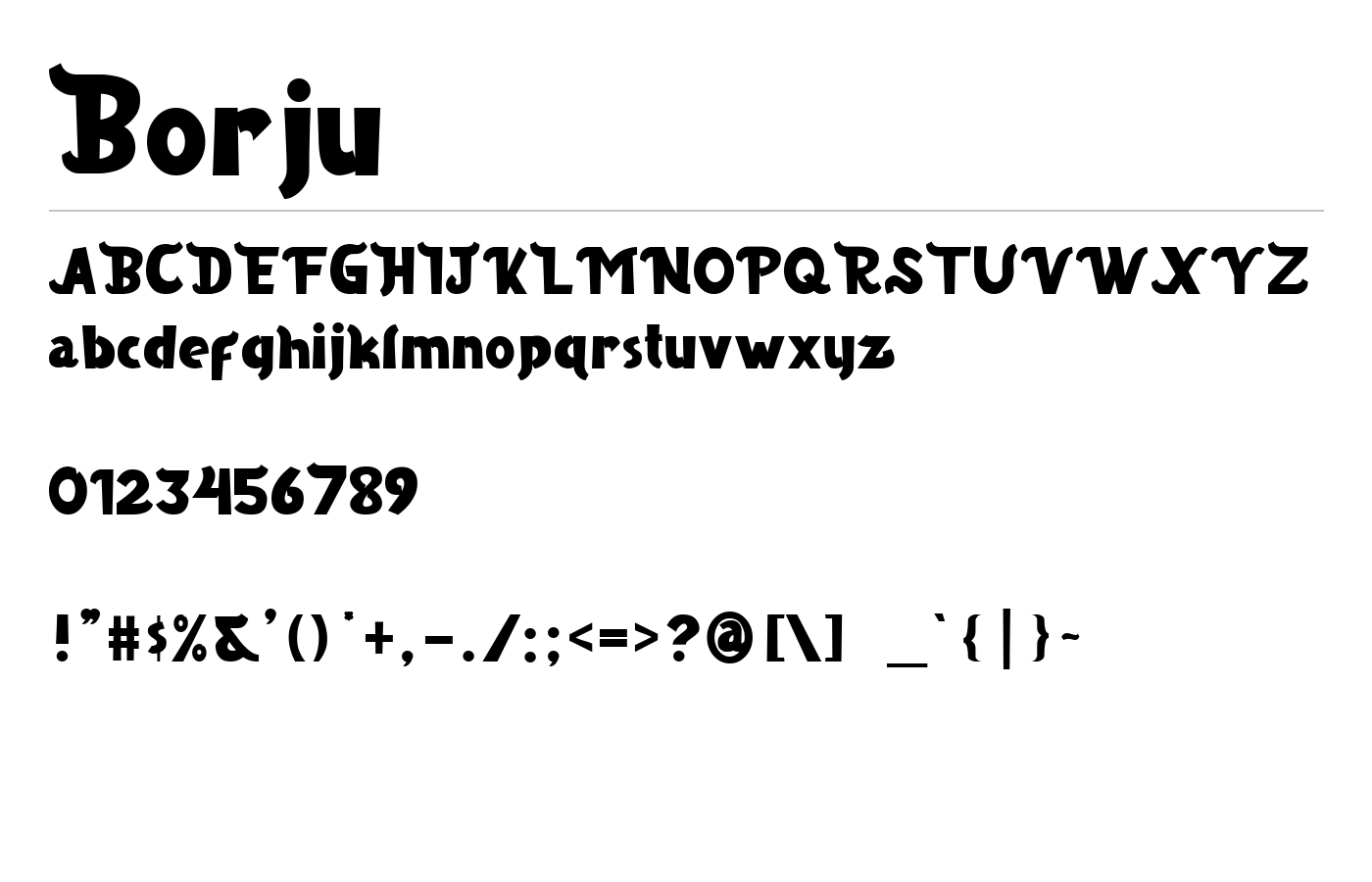
Borju is a bold, playful serif font with a strong personality and unique whimsical details that give it a lively and creative feel. Its slightly condensed letterforms and moderate contrast make it stand out in display uses, perfect for branding, posters, and headlines that want to convey a fun yet confident vibe. This font works well for projects needing a distinctive, energetic touch without sacrificing readability.
Borju Font
About Borju Font